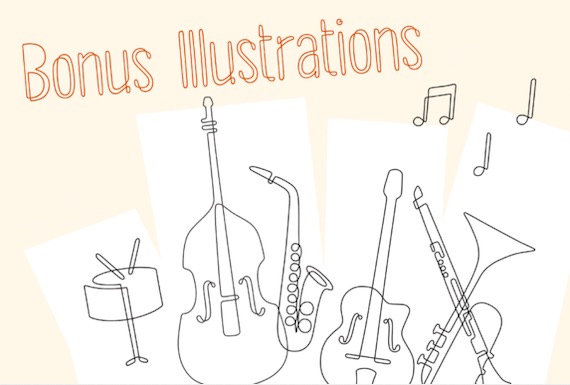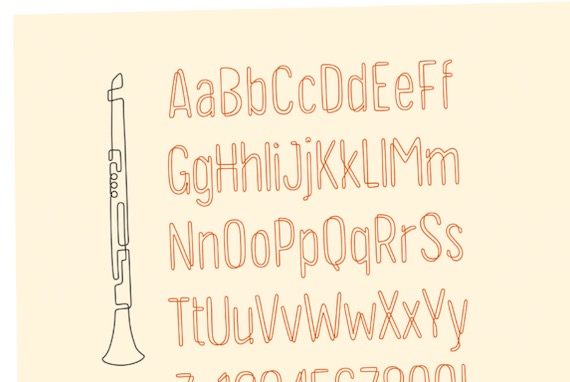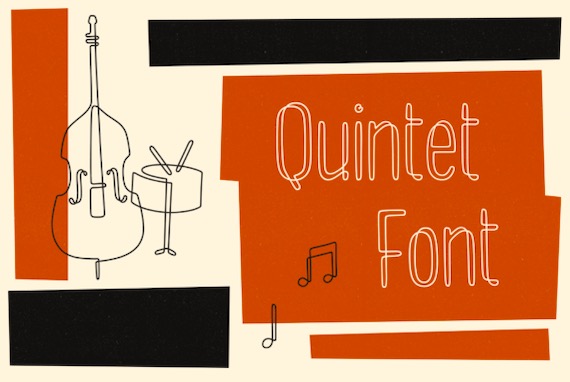
Quintet Font is a stylized and narrow display typeface that was created and shared by laurenashpole. This fancy font is made up of thin, looping lines. And it tries to walk the line between retro and modern and to incorporate some hand-drawn imperfections without being too obvious about it.
Quintet Font can easily be associated with an old-timey, swingy jazz aesthetic. Think the Jeeves and Wooster throwback theme song and opening credits, or the music of Stéphane Grappelli and Django Reinhardt (to who the name is a nod). That connection makes pairing it up with abstract musical instruments seem like the natural choice, and this package also includes those illustrations.